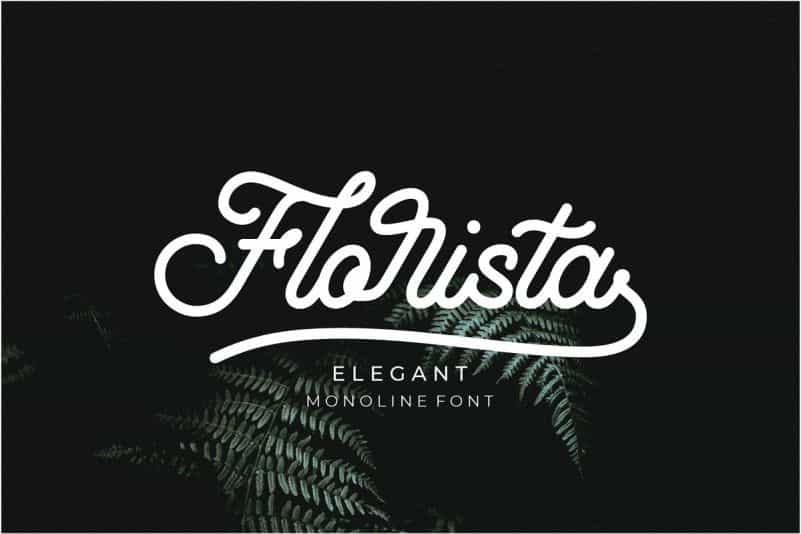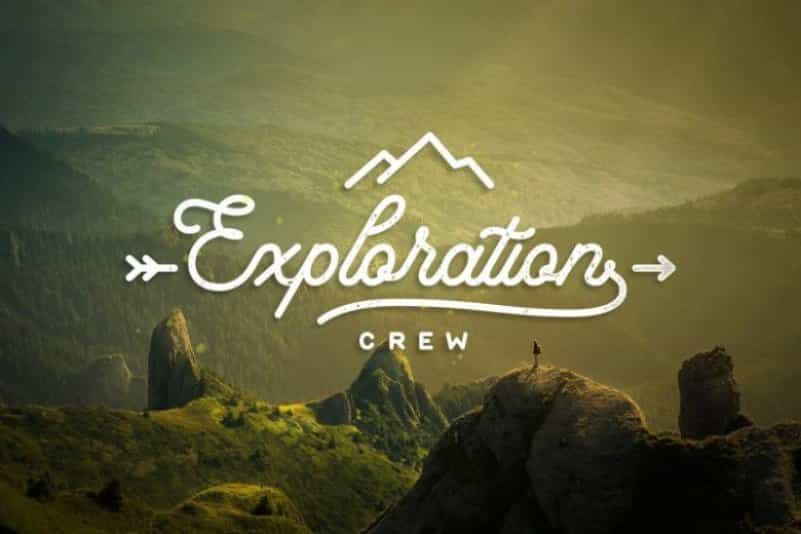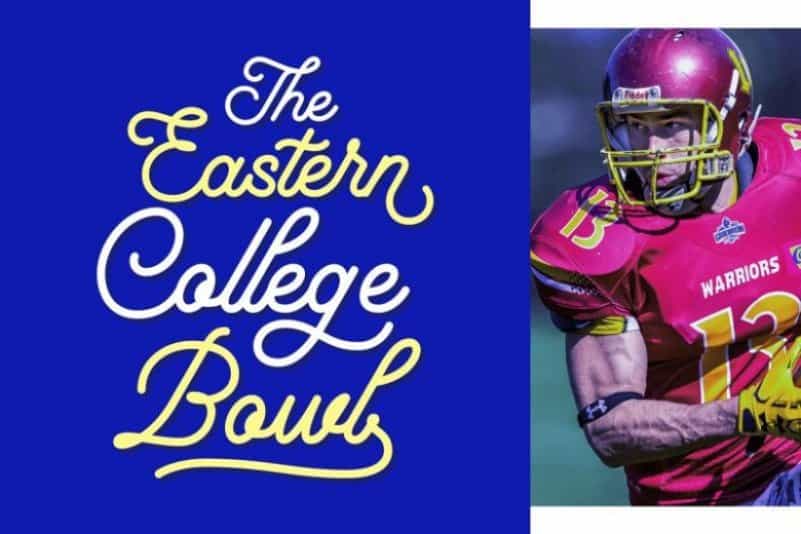
Discover Florista Script Font, part of the Calligraphy Script Monoline collection—a versatile and unique font perfect for adding a personal touch to your projects. Download it for free and enjoy crafting designs with style, from invitations to social media posts. This font is available exclusively for personal use, giving you the freedom to create without limits. Unlock your creativity with Florista Script Font today!
Here is the hello message for every visitor – check this beautiful monoline font. Fancy cursive scripts are best used for creating appealing messages and it should fit your project. I have decided to name this font as Florista Font. A clean and smooth font for script that perfectly fits its theme. This I derived alternates, ligatures, contextual alternates and ligature end swash ( s1, s2, s3 ).